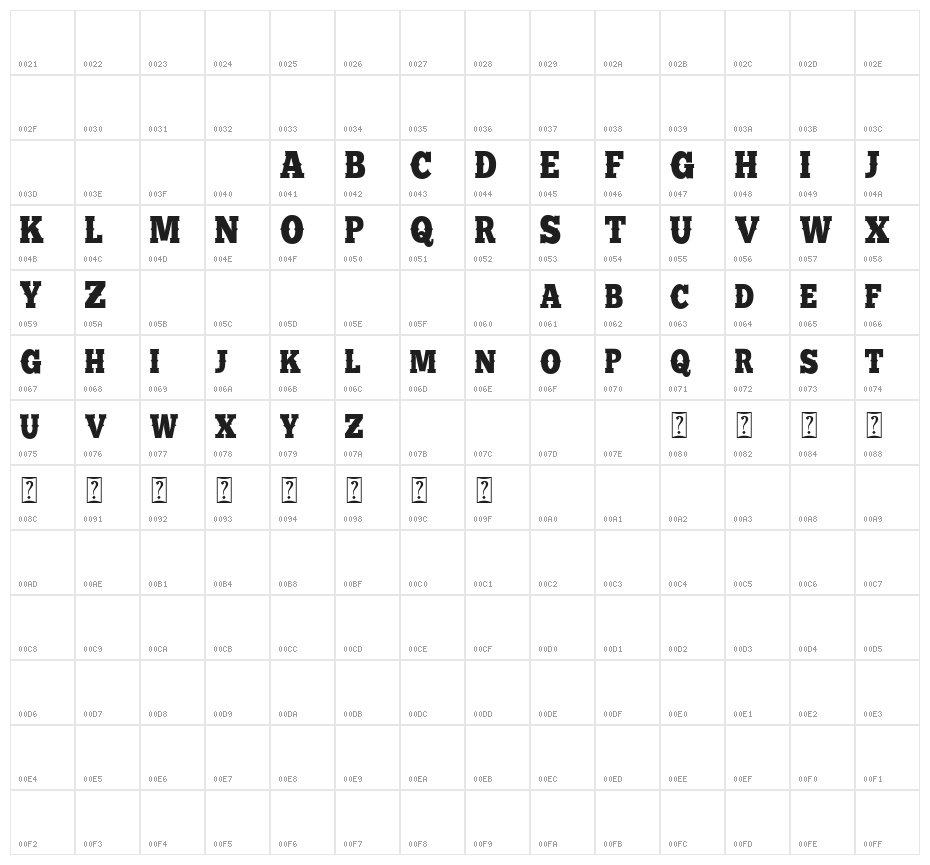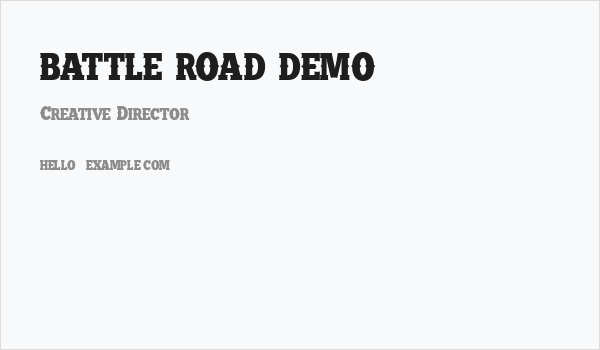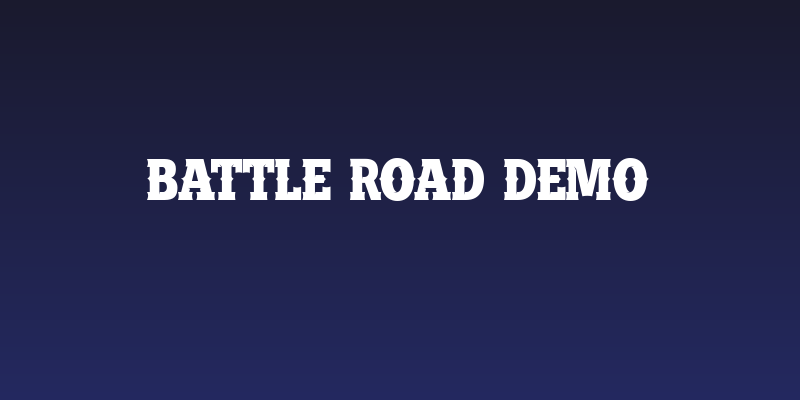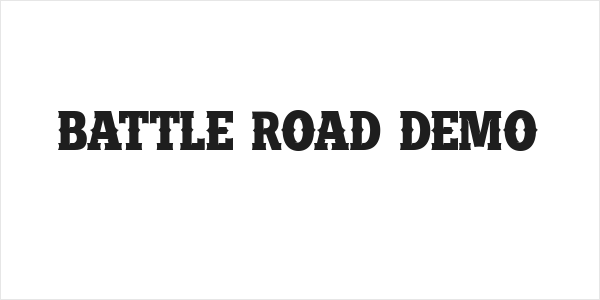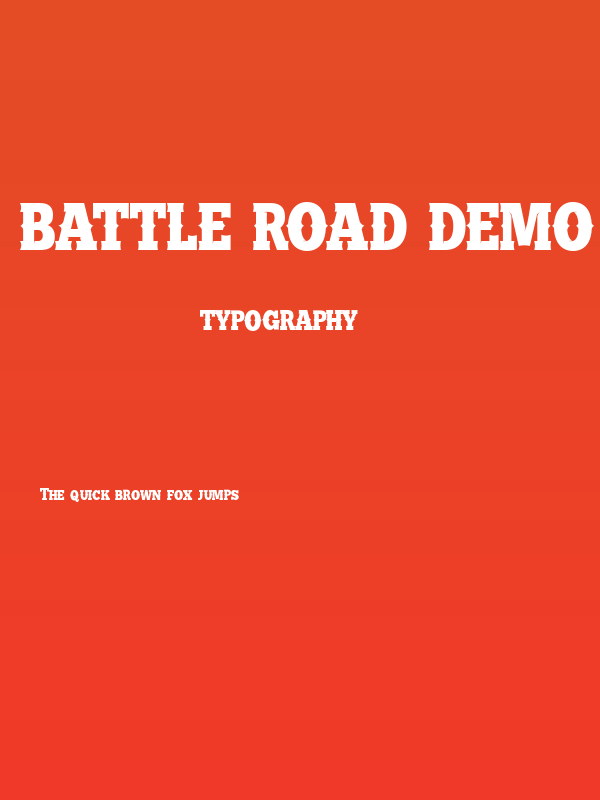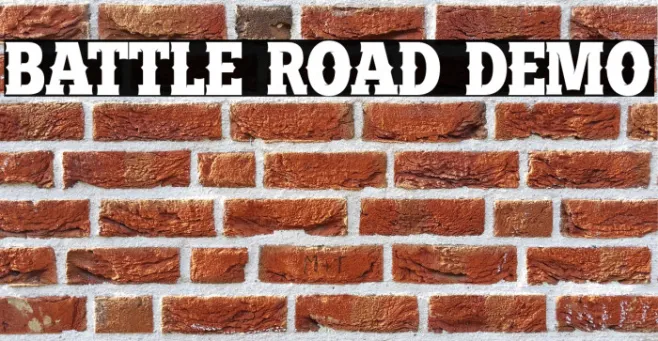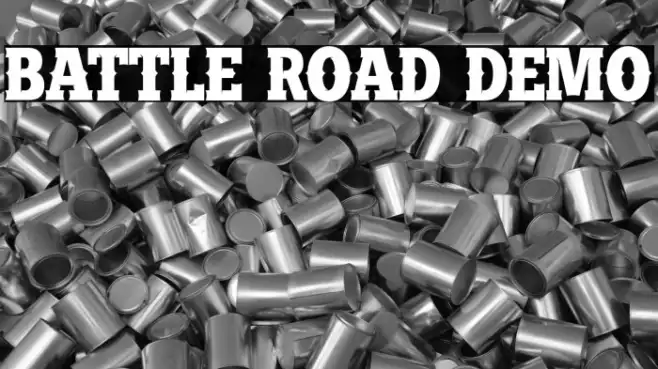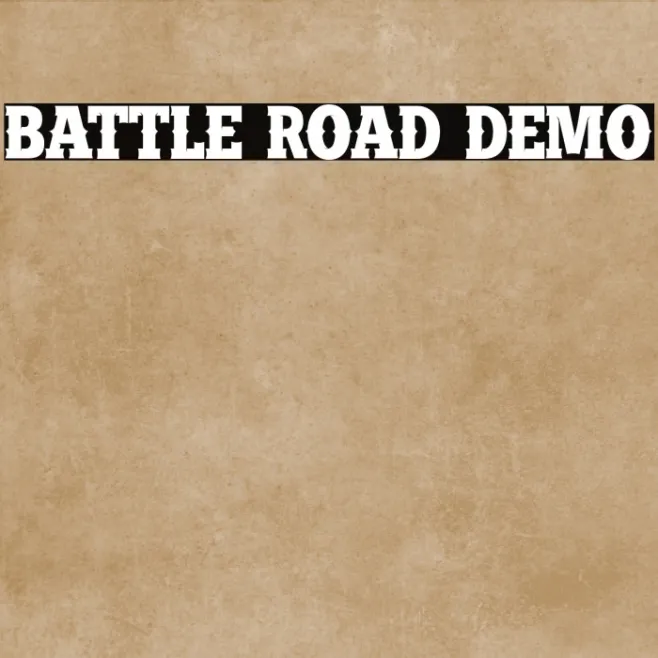
BATTLE ROAD DEMO Font
BATTLE ROAD DEMO Description
This font features a bold and robust design with strong, thick strokes that convey a sense of power and impact. The characters are designed with a slab serif style, giving them a sturdy and grounded appearance. The serifs are pronounced and add to the overall boldness of the font. The uppercase letters are uniform in height, creating a cohesive and balanced look. The font's design is reminiscent of vintage or western styles, making it suitable for projects that require a strong, authoritative presence. The spacing between characters is tight, enhancing the compact and solid feel of the text.
| Proposed Projects | Ideal for posters, headlines, branding, and any design needing a bold, impactful statement. |